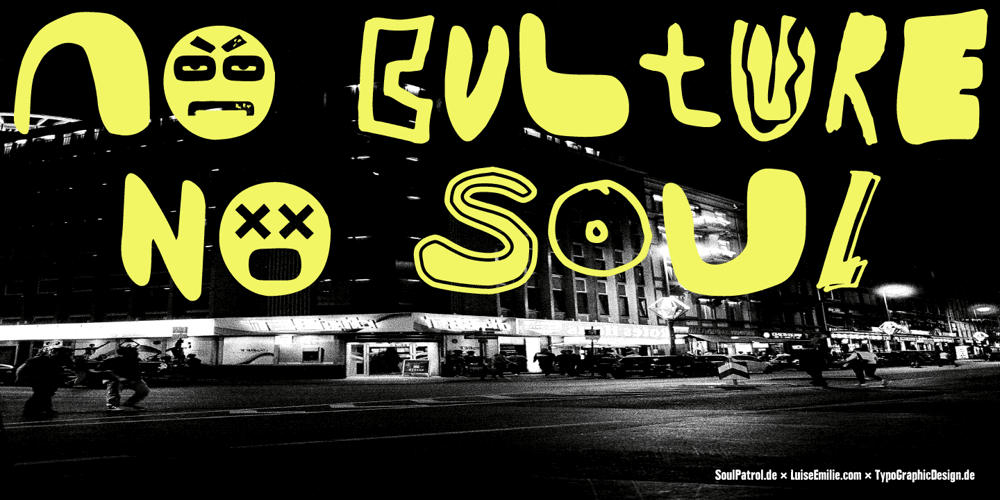
NO culture no SOUL
NO culture no SOUL font
NO culture no SOUL Font Family was designed by Manuel Viergutz and published by TypoGraphicDesign. NO culture no SOUL contains 2 styles and family package options. The typeface No Culture No Soul is designed from 2021–2022 for the font foundry Typo Graphic Design by Luise Herke × Manuel Viergutz as a project for support the culture. Special THX to Michael Rütten of soulpatrol.deThe display font with 254 glyphs incl. numbers, punctation, marks & symbols is inspired in the past and present. Extras like OpenType-features and 7 sylistic sets.For use in logos, magazines, posters, advertisement plus as webfont for decorative headlines. The font works best for display size.Have fun with this font & use the DEMO-FONT (with reduced glyph-set) FOR FREE!Font Spe­ci­fi­ca­ti­ons■ Font Name: No Culture No Soul■ Font Styles: 1 (Rough) + DEMO (with reduced glyph-set)■ Font Cate­gory: Dis­play for head­line size■ Glyph Set: 254 glyphs incl. extras like icons (decorative extras like dingbats, emojis, symbols)■ Design Date: 2021–2022■ Type Desi­gner: Luise Herke, Manuel Viergutz, THX to Michael Rütten (Soulpatrol)